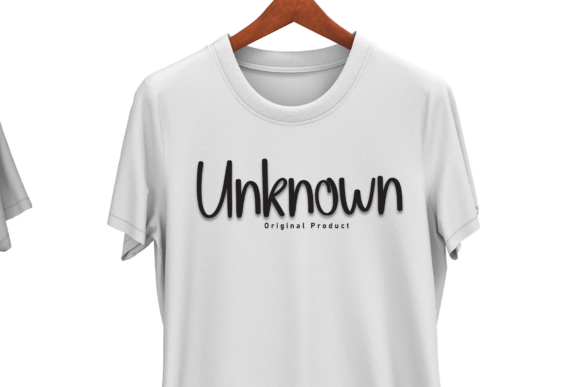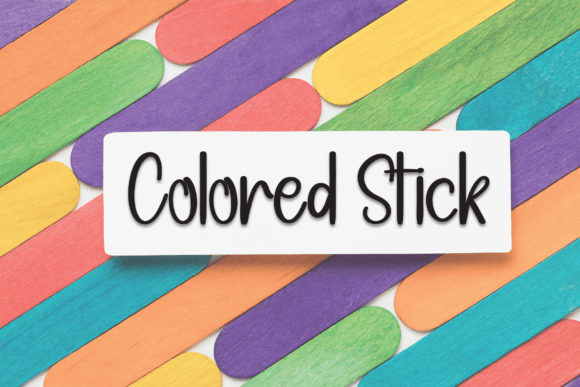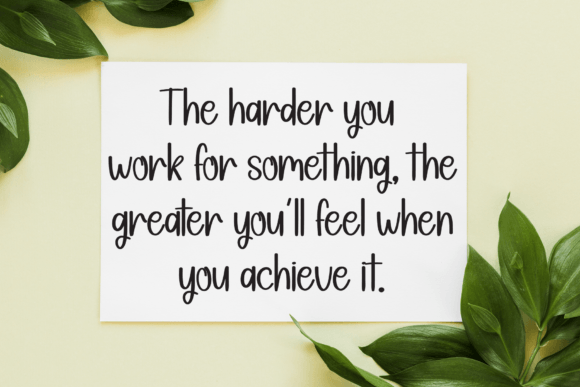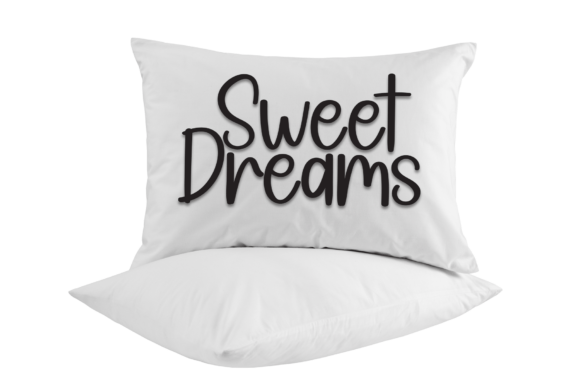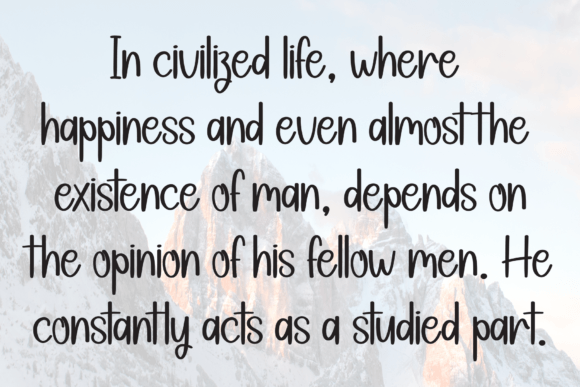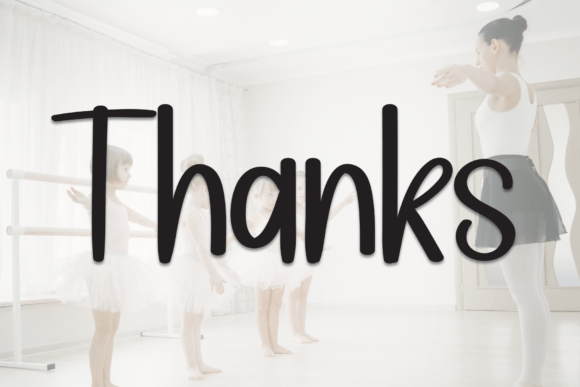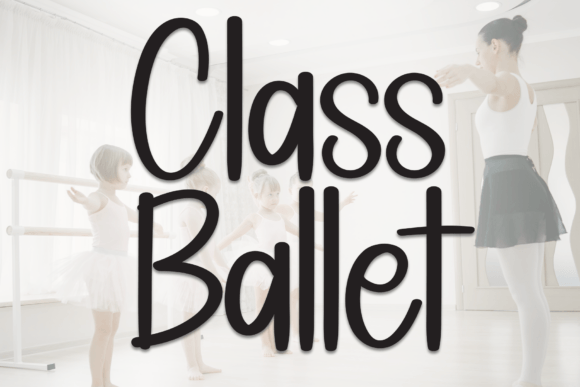
Introducing Class Ballet Font: The Sweetest Handwritten Display Font for Your Designs
Are you tired of using the same old fonts in your designs? Do you want to add a touch of whimsy and playfulness to your creations? Look no further than Class Ballet Font, the delightfully charming handwritten display font that’s sure to breathe a wave of sweet and friendly vibes into your designs.
A Font that Combines Handwritten Warmth with Professional Design
Class Ballet Font is a unique and beautiful font that expertly marries the joy of handwritten warmth with professional design. This font is perfect for designers and crafters who want to add a personal touch to their creations without sacrificing elegance and sophistication. With Class Ballet Font, you can infuse an element of whimsical fun into your designs, making them truly one-of-a-kind.
One of the most popular uses for Class Ballet Font is in wedding invitations and cards. This font is ideal for couples who want to add a touch of romance and playfulness to their special day. Whether you’re designing a formal wedding invitation or a casual save-the-date card, Class Ballet Font is the perfect choice. The font’s sweet and friendly vibes will set the tone for a joyful and celebratory occasion.
Add a Playful Twist to Any Design
Class Ballet Font is versatile and can be used in a variety of designs beyond wedding invitations and cards. From heartfelt messages to fun detailing, this font is your go-to for adding a playful twist to any design. Whether you’re creating a poster, a flyer, or a social media graphic, Class Ballet Font will add a dash of cuteness and verve to your creations.
Key Features of Class Ballet Font
• Handwritten display font: Class Ballet Font is a beautifully crafted handwritten font that’s perfect for headlines, titles, and short text.
• Sweet and friendly vibes: This font exudes a sense of warmth and friendliness, making it perfect for designs that require a personal touch.
• Whimsical and playful: Class Ballet Font has a playful and whimsical feel that’s sure to add a touch of fun to your designs.
• Versatile: This font can be used in a variety of designs, from wedding invitations and cards to posters, flyers, and social media graphics.
• Easy to read: Despite its playful feel, Class Ballet Font is easy to read and understand, making it perfect for designs that require a clear message.
Tips for Using Class Ballet Font
Here are a few tips for getting the most out of Class Ballet Font:
• Use it as a headline font: Class Ballet Font is perfect for headlines and titles, where its playful and whimsical feel can really shine.
• Pair it with a simple font: For body text, pair Class Ballet Font with a simple and easy-to-read font to create a beautiful contrast.
• Experiment with colors: Class Ballet Font looks great in a variety of colors, so don’t be afraid to experiment and find the perfect hue for your design.
• Add some texture: To give your design an extra touch of whimsy, try adding some texture or patterns to your background or graphics.
Class Ballet Font is a beautiful and charming handwritten display font that’s perfect for designers and crafters who want to add a touch of whimsy and playfulness to their creations. With its sweet and friendly vibes, this font is ideal for wedding invitations and cards, as well as a variety of other designs. Whether you’re looking to add a playful twist to your designs or simply want to try something new, Class Ballet Font is a great choice.